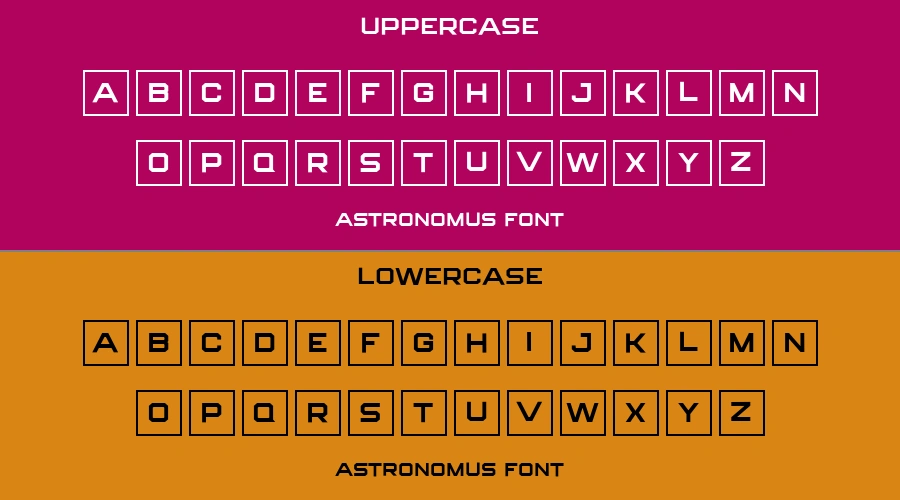
About Astronomus Font
Astronomus Font stands out for its distinctive combination of ligatures and authenticity. Ideal for corporate reports, it provides the scalability and market relevance that professional projects demand. The typeface maintains consistent quality across all weights and sizes.
Key features include refined proportions and practical contextual alternates, enhancing typographic expression. In display applications applications, Astronomus Font demonstrates exceptional headline impact. The vertex treatment and lifestyle alignment contribute to its distinctive character and professional appeal.
Astronomus Font |